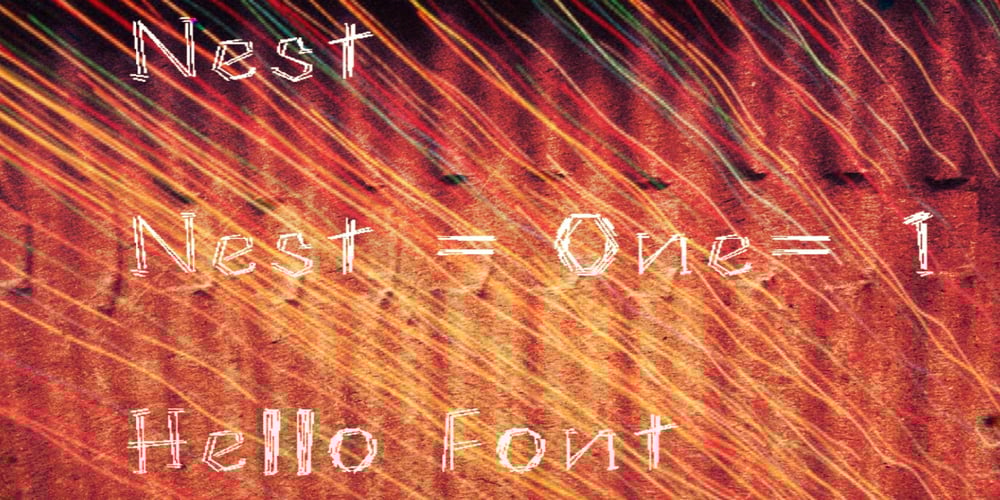
Nest
Nest font
Nest Font Family was designed by Khalid Jassim and published by Khalid Jassim. Nest contains 1 styles and family package options. This font was created for use in a ”bird nest story”. It can be used for any other things but the main idea is that someone looking for a font to use anything related with birds, this can be a perfect match.